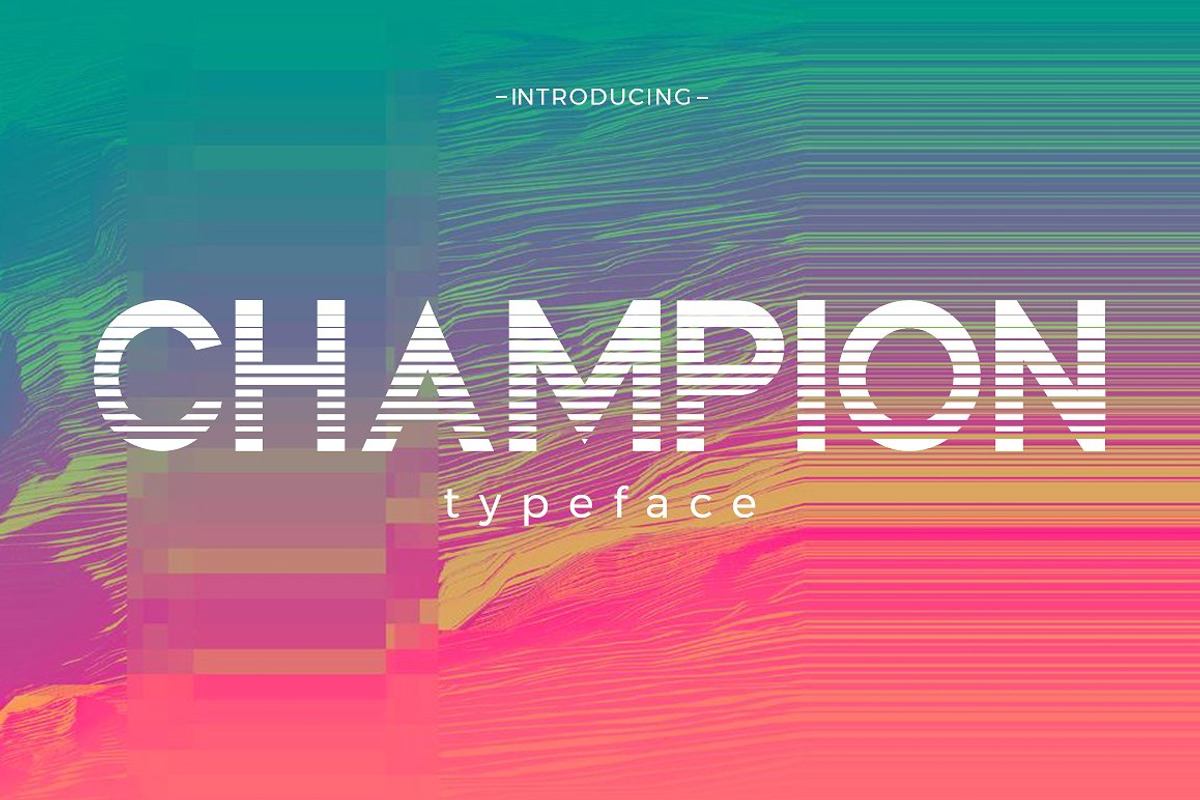
You must purchase this font for commercial use. However, you can download Champion Typeface Free Download for testing purposes. Champion is a bold and versatile typeface designed to make a statement. With its strong, clean lines and modern structure, this font is perfect for creating impactful logos, headlines, branding, posters, and more.
Its distinctive design combines contemporary elements with classic typography, making it suitable for a wide range of creative projects. Whether you’re working on sports branding, advertising materials, or a dynamic logo, Champion Typeface will elevate your design with its bold and professional look.